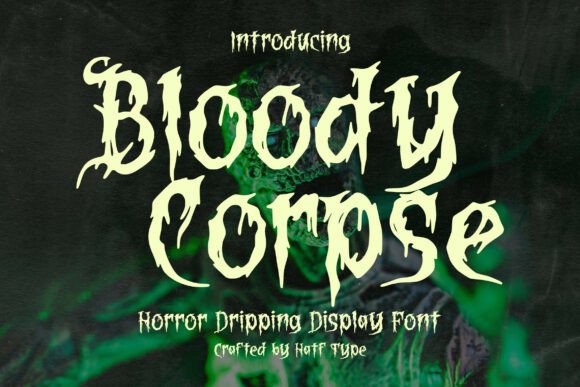
Bloody Corpse Font: Unleash a Wave of Terror with this Chilling Display Font
The world of typography is vast and diverse, with fonts ranging from elegant and sophisticated to bold and attention-grabbing. For those looking to add a touch of horror and theatrical drama to their projects, the Bloody Corpse font is an excellent choice. This alarming display font is bathed in chilling nuances, making it perfect for horror film poster headlines, Halloween-centric creations, and spine-tingling survival games.
What is Bloody Corpse Font?
Bloody Corpse is a unique display font that features a blood-curdling, fresh blood drip effect trickling down each letter. This distinctive design element embodies a sense of dread, making it an ideal choice for projects that require a touch of horror and suspense. The font’s audacious and substantial lines, coupled with robust letter forms, masterfully depict the sinister dripping, providing a cold shiver of terror and immediate intrigue.
Ideas for Using Bloody Corpse Font
The Bloody Corpse font is versatile and can be used in a variety of projects, including:
- Horror Film Posters: Add a touch of terror to your horror film posters with the Bloody Corpse font. The font’s blood drip effect and bold lines are sure to grab the attention of potential viewers and leave a lasting impression.
- Halloween-centric Creations: Whether you’re creating invitations, decorations, or other Halloween-themed materials, the Bloody Corpse font is a great choice. The font’s spooky design will add to the festive atmosphere and create a sense of excitement and anticipation.
- Spine-tingling Survival Games: If you’re a game developer looking to create a survival game that will keep players on the edge of their seats, the Bloody Corpse font is an excellent choice. The font’s bold and attention-grabbing design will add to the game’s suspenseful atmosphere and make it more engaging.
Key Features of Bloody Corpse Font
The Bloody Corpse font has several key features that make it an excellent choice for projects that require a touch of horror and suspense. Some of these features include:
- Blood Drip Effect: The font’s blood drip effect is a distinctive design element that adds to the overall sense of horror and suspense.
- Audacious and Substantial Lines: The font’s bold lines are perfect for creating attention-grabbing headlines and titles.
- Robust Letter Forms: The font’s robust letter forms are designed to withstand the blood drip effect, creating a sense of durability and strength.
Benefits of Using Bloody Corpse Font
There are several benefits to using the Bloody Corpse font in your projects. Some of these benefits include:
- Immediate Intrigue: The font’s bold and attention-grabbing design is sure to pique the curiosity of your audience and leave a lasting impression.
- Element of Horror: The font’s horror-themed design adds an element of suspense and terror to your projects, making them more engaging and memorable.
- Theatrical Drama: The font’s bold and dramatic design makes it perfect for projects that require a touch of theatrical drama.
Tips for Using Bloody Corpse Font
To get the most out of the Bloody Corpse font, here are a few tips to keep in mind:
- Use in Moderation: While the Bloody Corpse font is attention-grabbing, it’s essential to use it in moderation. Overusing the font can lead to a decrease in its effectiveness.
- Pair with Complementary Fonts: Pairing the Bloody Corpse font with complementary fonts can help to create a visually appealing design.
- Experiment with Colors: Experimenting with different colors can help to enhance the font’s horror-themed design and add to its overall impact.
The Bloody Corpse font is a unique and attention-grabbing display font that’s perfect for projects that require a touch of horror and suspense. With its blood drip effect, bold lines, and robust letter forms, this font is sure to captivate and pique the curiosity of your audience. Whether you’re creating horror film posters, Halloween-centric creations, or spine-tingling survival games, the Bloody Corpse font is an excellent choice.